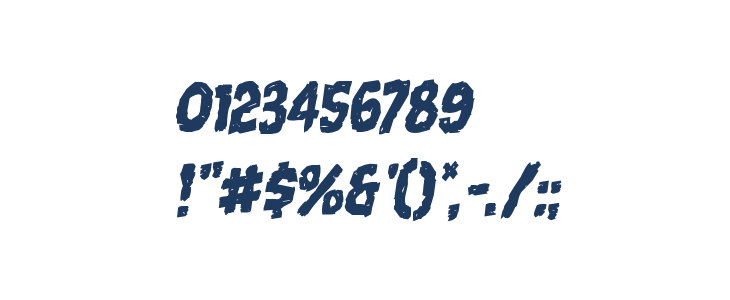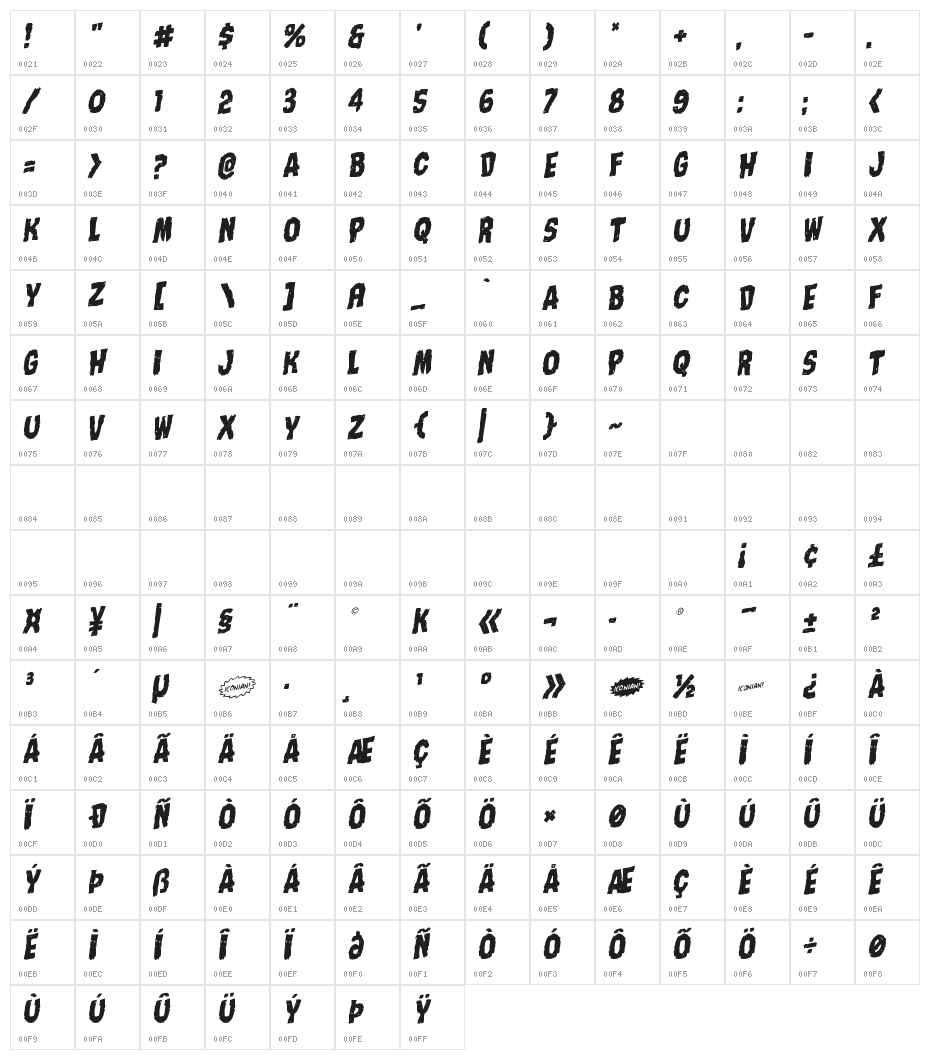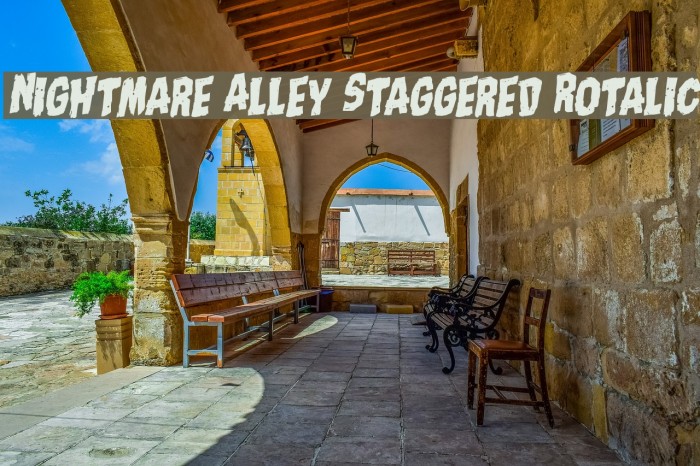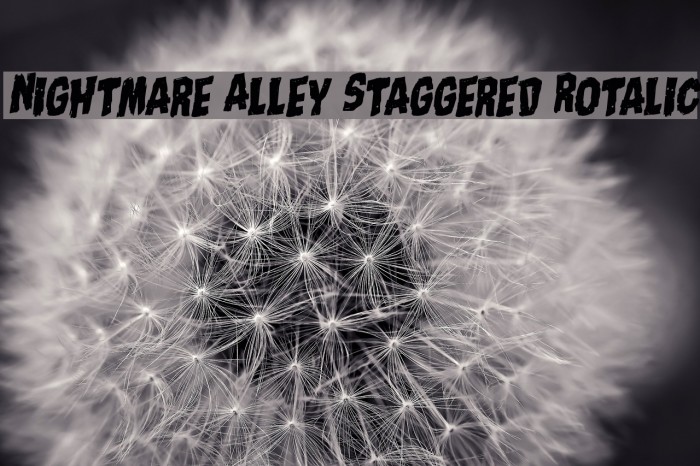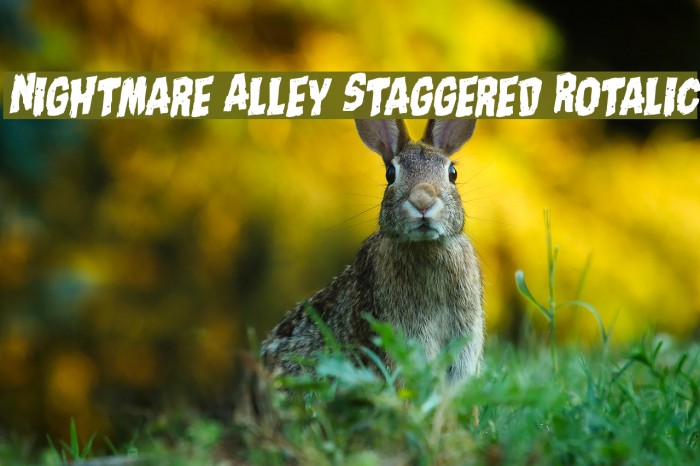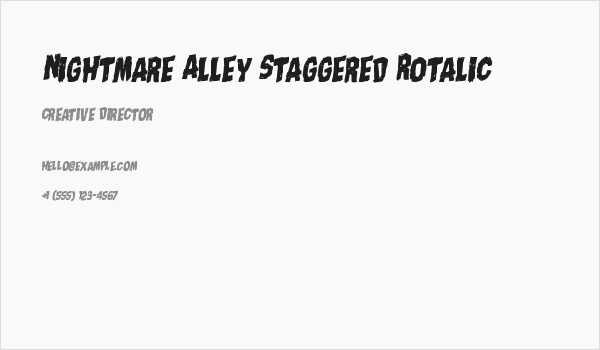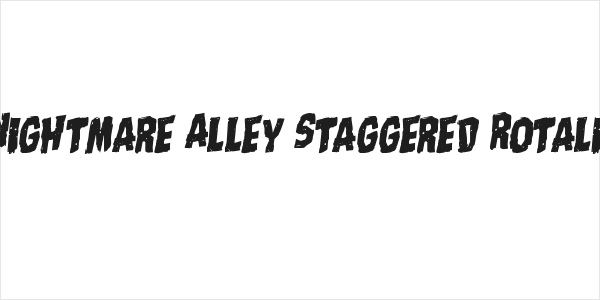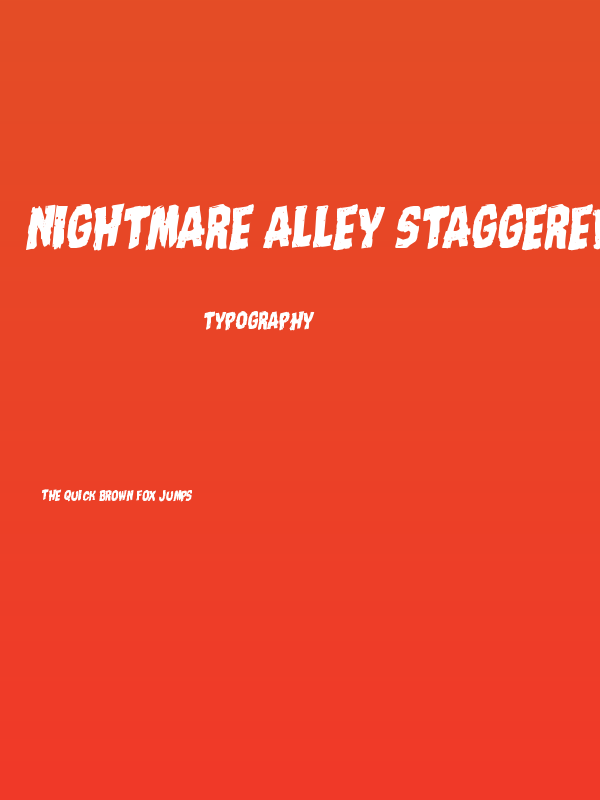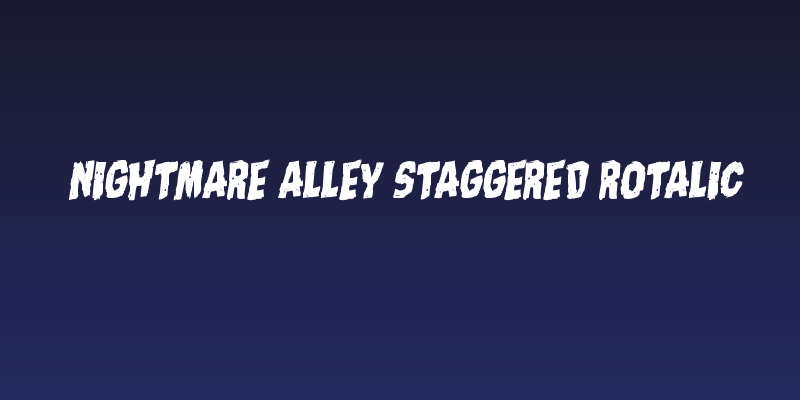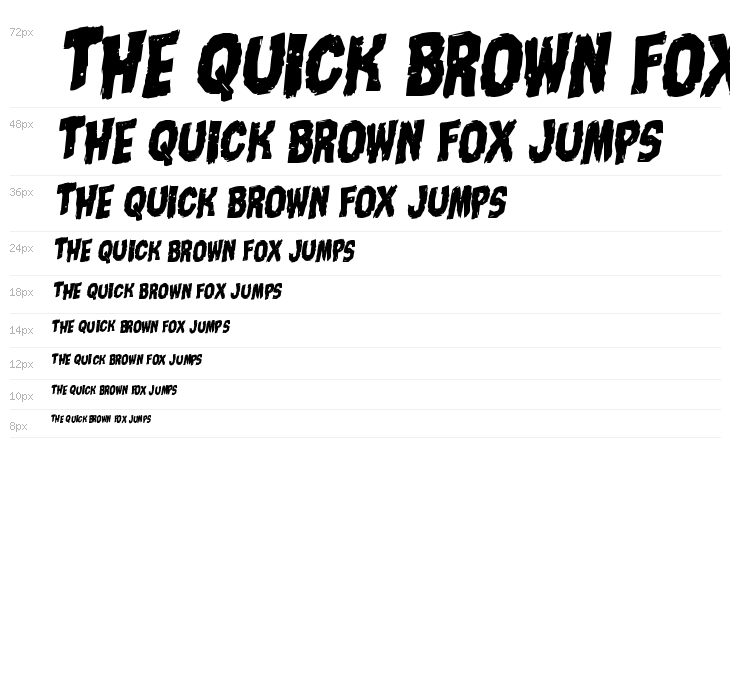
Nightmare Alley Staggered Rotalic Font
Nightmare Alley Staggered Rotalic Description
This font features a bold, distressed style with a staggered, italicized appearance. The characters are rugged and uneven, giving a sense of chaos and energy. The uppercase and lowercase letters maintain a consistent rough texture, while the numbers and special characters follow the same aesthetic. This font is ideal for projects that require a gritty, rebellious look, such as posters, album covers, or video game titles. The irregular edges and bold strokes make it stand out, while the italic slant adds a dynamic feel.
| Proposed Projects | Perfect for posters, album covers, video game titles, and any project needing a rebellious, energetic vibe. |